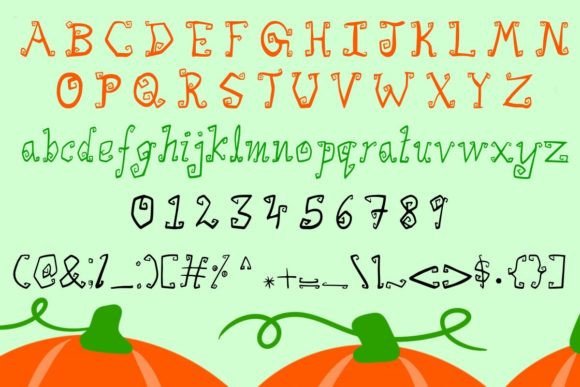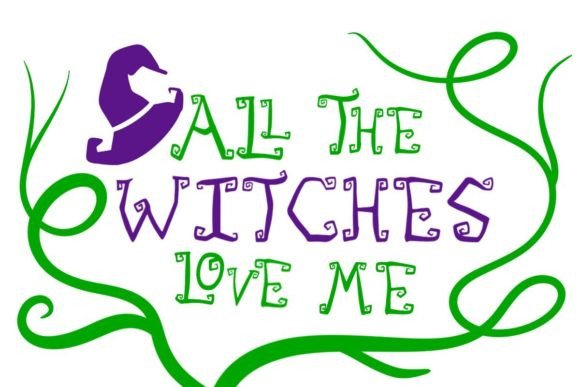
Introduction to Pumpkin Leaves Font
Do you remember that moment when a single design element sparks a wave of creativity? For many designers, it’s a specific font or texture that sets the tone for a project. I recall a time when I stumbled upon a unique, hand-drawn font that inspired me to create an entire world around it. That’s exactly what the Pumpkin Leaves Font does – it transports you to a whimsical realm of endless possibilities.
As a valuable design resource, the Pumpkin Leaves Font is a high-quality addition to any creative project. Its intricate, hand-drawn design makes it perfect for book covers, children’s books, comics, and posters. With a transparent background, you can easily integrate it into your design without worrying about any unwanted distractions. And the best part? This fantastic font is available for a free download, making it an absolute must-have for designers looking to elevate their work.
- High-quality design resource suitable for creative projects, including invitations, greeting cards, and more.
- Features a unique, hand-drawn design with intricate details, adding a personal touch to any project.
Honest Review: Pumpkin Leaves Font
I recently came across the Pumpkin Leaves Font, and I’m excited to share my thoughts on this design resource. As a designer, I’m always on the lookout for high-quality fonts that can elevate my creative projects.
The Pumpkin Leaves Font is a beautiful, hand-drawn font that features intricate details and a natural feel. It’s perfect for designers who want to add a touch of whimsy to their designs. ✨ One of the standout features of this font is its transparent background, making it easy to combine with other design elements.
- The font is only available in a single style, which may limit its versatility
- The characters may not be as uniform in size and spacing as some other fonts
- The font may not be suitable for large blocks of text
Overall, I’m impressed with the Pumpkin Leaves Font, and I think it’s a great addition to any designer’s toolkit. While it may have some limitations, its unique design and free download make it a valuable resource for any creative project. ⚠️
Pumpkin Leaves Font is a high-quality design resource perfect for your next creative project. This font offers a unique and intricate design, making it ideal for various applications. One of its key features is a transparent background, allowing for seamless integration with any design.
Pumpkin Leaves Font is perfect for:
- Food and beverage branding
- Home decor and interior design
- Seasonal and holiday-themed designs